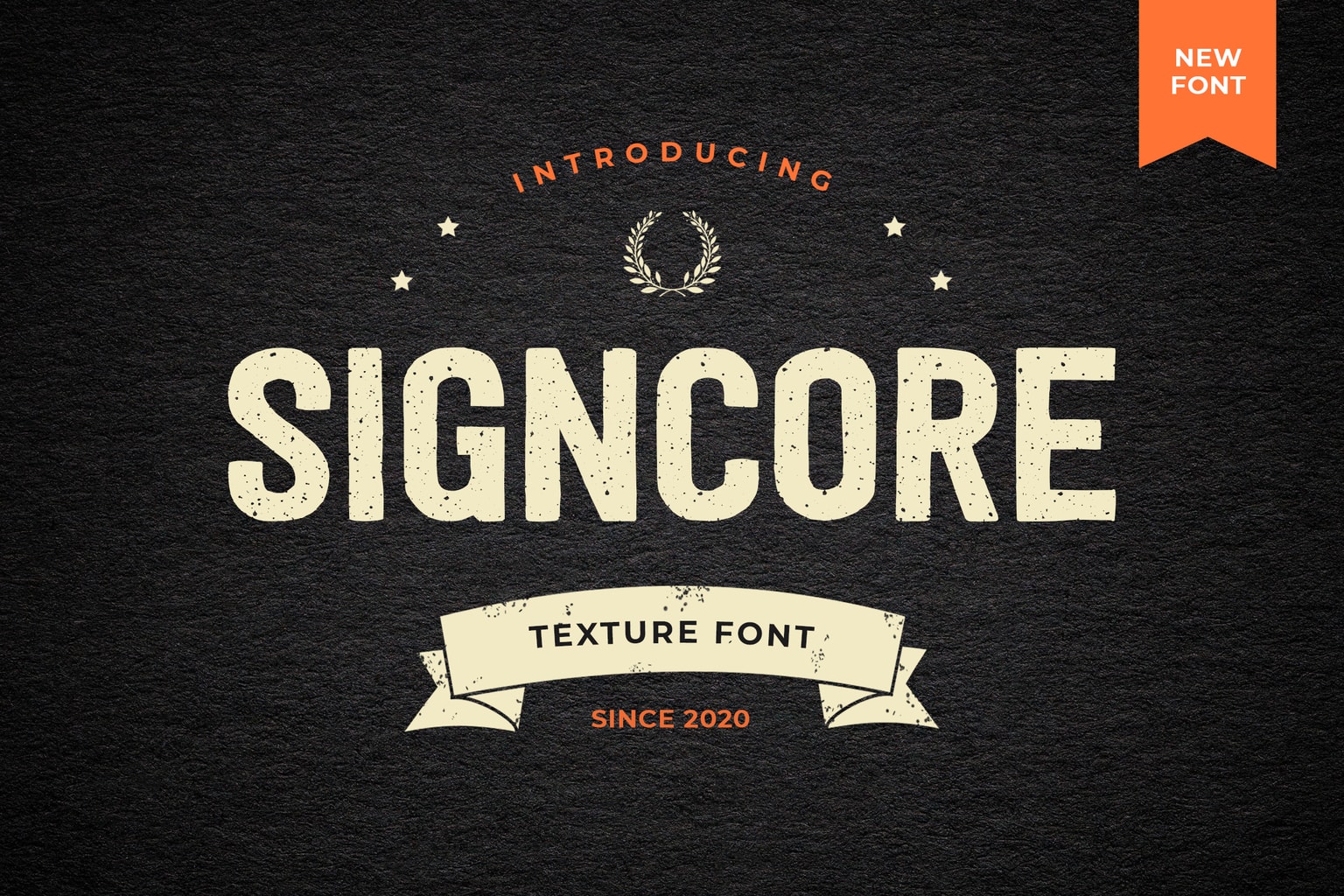
10 Sans Serif Font for Your Projects
This post will provide 10 Sans Serif font for your designs. Before we go to the popular sans serif font lists by UICreative, let’s learn what a sans serif font is.
What is a Sans Serif Font?
Sans Serif font is a typeface considered sans serif and does not have serifs or small dashes. Helvetica, Avant Garde, Arial, and Geneva are just a few of the many popular sans serif typefaces. Then, Times New Roman, Courier, New Century Schoolbook, and Palatino are the Sans Serif font types.
Studies consistently find that sans serif typefaces are harder to read. This explains why they are so popular for usage in relatively short pieces of text like headlines and captions. After we learn what Sans Serif is, here are the collections from UICreative for Sans Serif fonts you can use for your projects.
10 Sans Serif Fonts
1. Mondapick Sans Serif Font Family
If you are looking for a beautiful, classy, elegant, and modern font, Mondapick is the answer. This font is so versatile that you can use it for everything. It’s from creating logos, writing wedding invitations, and anything. You should select this font if you are currently working on various projects. Then, this is the one that best suits your needs among the available options.
2. Kinder Child Sans Serif Font
It is common knowledge that youngsters are drawn to adorable and fascinating things. Then, you are a teacher? The Kinder Child Sans Serif Font might be an excellent option to consider. This is one of the best playful fonts in UICreative. This typeface offers a one-of-a-kind and endearing type that is perfect for use with youngsters. You must know that the typefaces they read might impact their motivation to study. So, careful consideration must be given to selecting appropriate fonts for use by children.
3. Melinda Evania Modern Sans Serif Font
It requires you, as a content developer, to produce exciting stuff. The selection of typefaces to create content is an essential factor. Then, one font you can select is the Melinda Evania Modern Sans Serif Font. This font is versatile. You may use it in various projects. On the other hand, this typeface works best for making things look good.
4. Bunch Bonarie Sans Serif Fonts
Are you working involving children? Then, you are confused about how to develop educational resources for children. The most crucial consideration is how to pique children’s interest in your actions. One of them has to do with the typefaces that you employ.
Then the Bunch Bonarie Font is another example of a whimsical typeface, much like the Kinder Child Series Font. The Bunch Bonarie Sans Serif Font is a design for a font that enhances equilibrium and exemplifies elegance. It’s in a manner reflective of contemporary style. This font is appropriate for various projects and companies that wish to emphasize dominance and trustworthiness.
5. Fort Avenue Serif Display Font
Do you currently plan to work on a project involving a record label? In that case, you must use the Fort Avenue typeface in your publication. The Fort Avenue Serif Display Font is a sans. Somewhat elongated serif typeface and features point endings. This font has a futuristic look and delivers an aesthetic without sacrificing robustness.
Because it possesses a mix of harmonic and attractive typography, you can use this font for headlines or lengthier texts in various contexts. It is such as for technological websites, magazines, electronic devices, brand logos, labels, and a variety of other applications.
6. Danzone Sans Serif Display Font
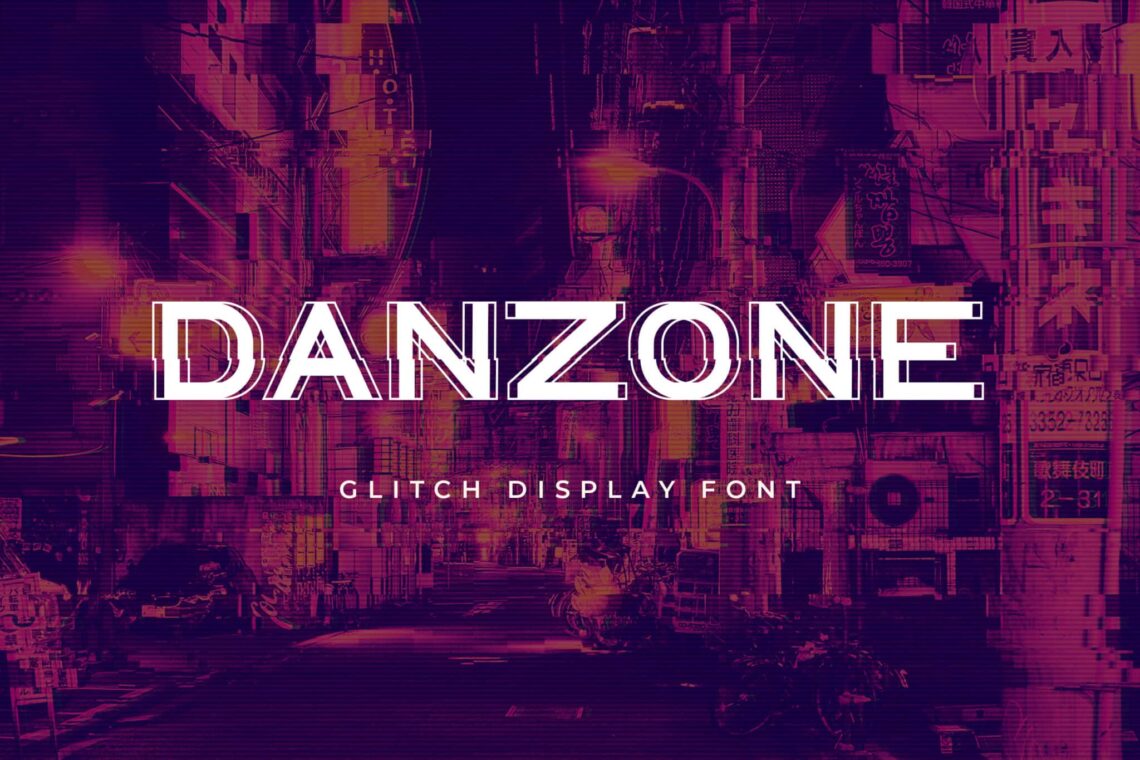
Coming up with aesthetically pleasing products is not a simple task. The array of fins available is an essential factor to consider. Then, this Danzone Sans Serif Display Font is the best option. Its shape is nearly identical to that of the Fort Avenue font, but it has a universal feel. The Danzone sans Serif Display Font is a form of serif font that you can use for display. This typeface has a vintage, laid-back vibe and lends it an air of authenticity and refinement while maintaining a laid-back and modern appearance.
7. Kanwode Sans Serif Display Font
This font is ideal for any of your projects involving merchandise, including T-shirts and other articles of clothing. Some of you may be already familiar with this typeface. Then, the sanserif font style known as Kanwode Sans Serif Display Font is more up-to-date and unique. The combination of identifiable elements, such as roads and typography, with a geometric style produces a recognizable and appealing look across a wide range of businesses and products.
8. Fight Bear Display Typeface Font
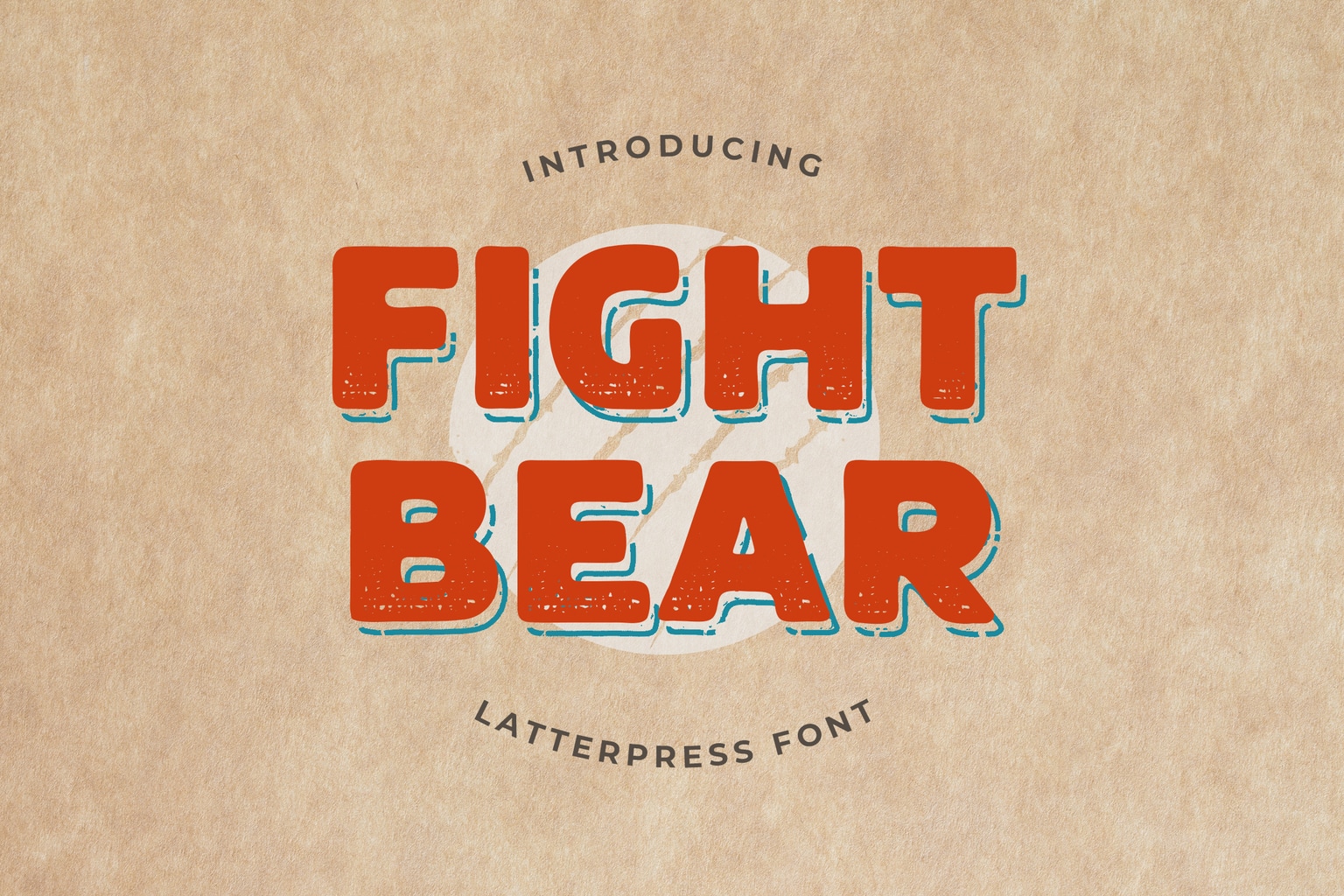
This font is ideal for any of your projects involving merchandise, including T-shirts and other articles of clothing. Some of you may be already familiar with this typeface. The sanserif font style known as Kanwode Sans Serif Display Font is more up-to-date and amazing.
The combination of identifiable elements, such as roads and typography, with a geometric style produces a recognizable and appealing look across a wide range of businesses and products. Then, Fight Bear Display Typeface Font combines tidy and flat typographic text at the top and bottom of the font. This font applies to projects requiring a more comprehensive spotlight, clarity, and reinforcement.